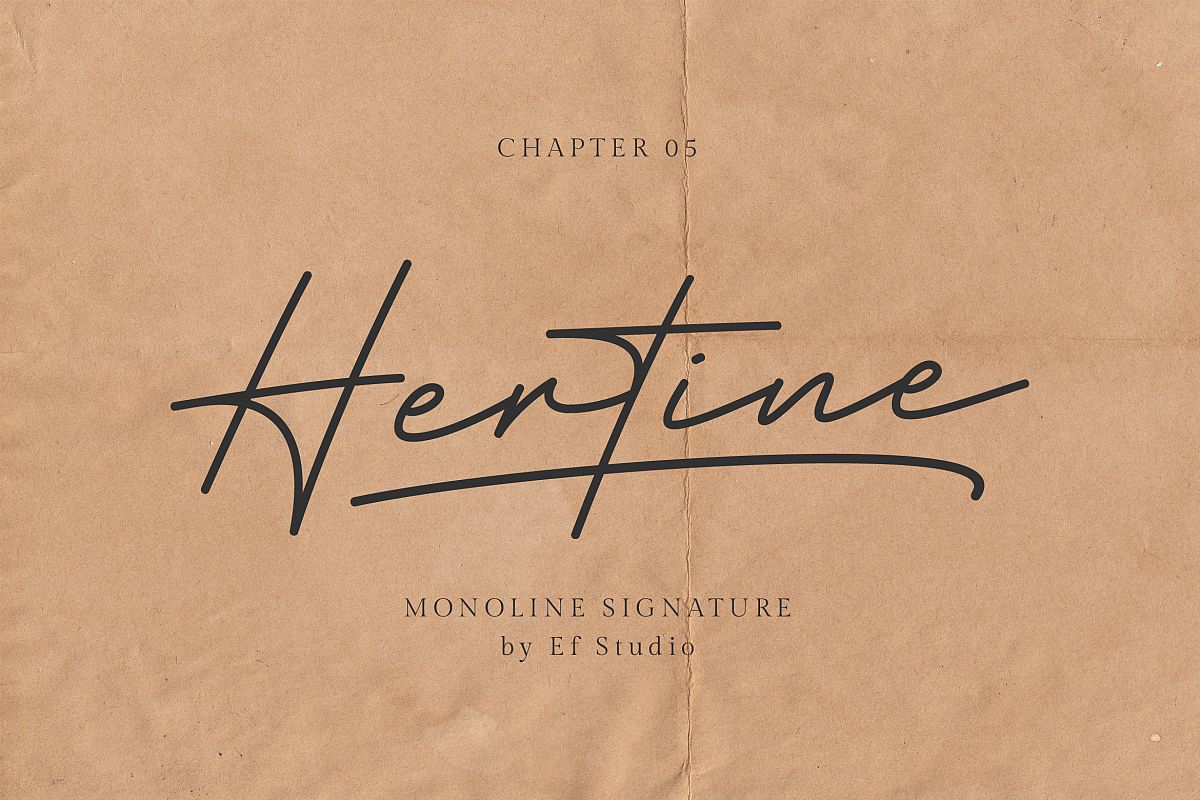
Hertine - Monoline Signature
Hertine
Hertine s a signature style font, this font is perfect for watermarks, invitations, stationery, wedding designs, social media posts, advertisements, product packaging, product designs, labels, photography, logo, special events and more.
Hertine is equipped with many additional features that allow you to customize your text. You will get a complete set of uppercase and lowercase, multilingual, punctuation, ligatures, stylistic alternates a-z.